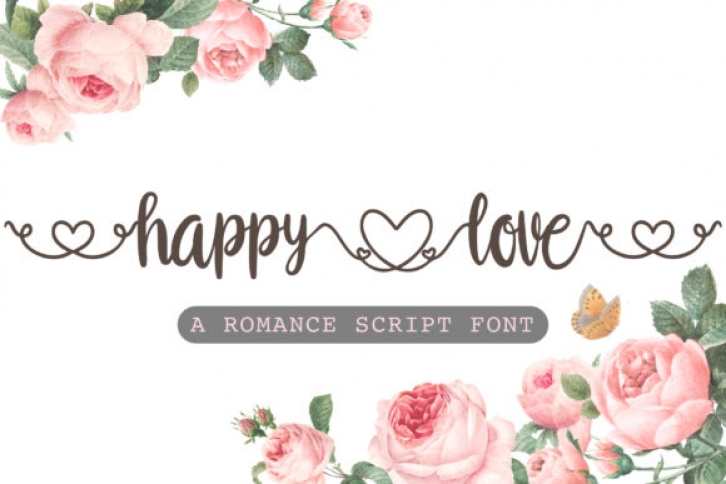
Happy Love is a handwritten font with a modern and elegant feel. It can be used for logos, branding, invitations, cards, wedding card, social media posts and much more!